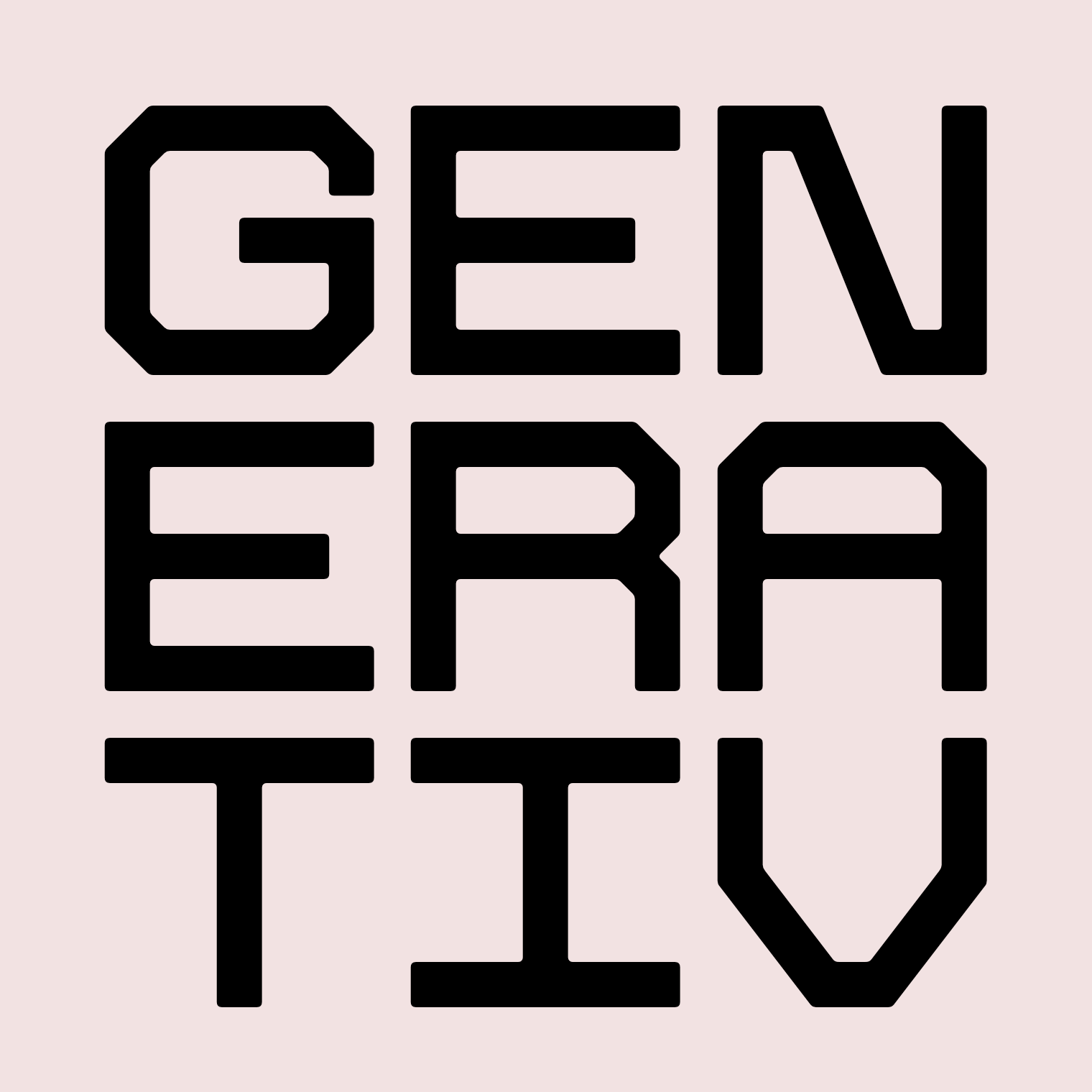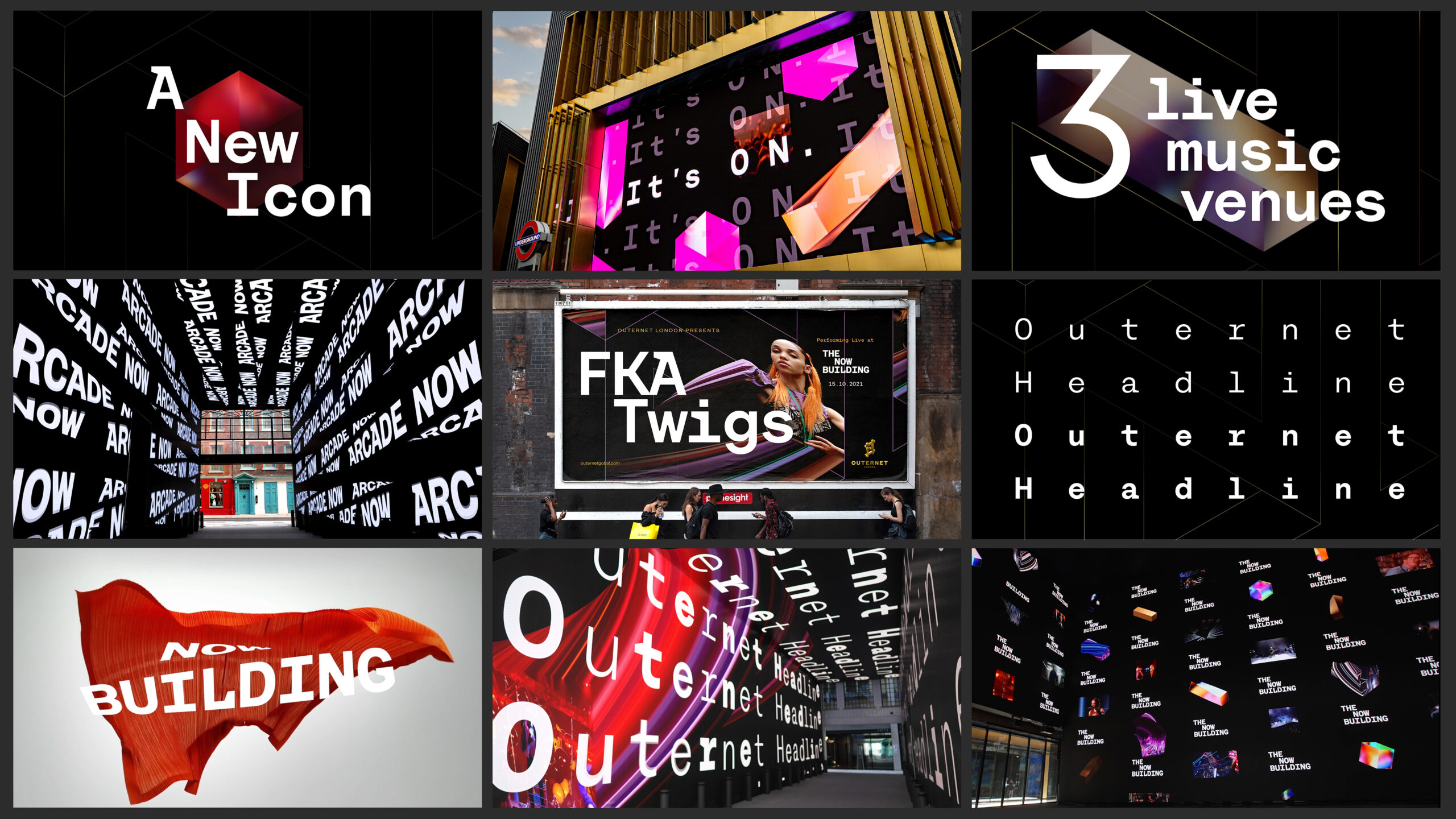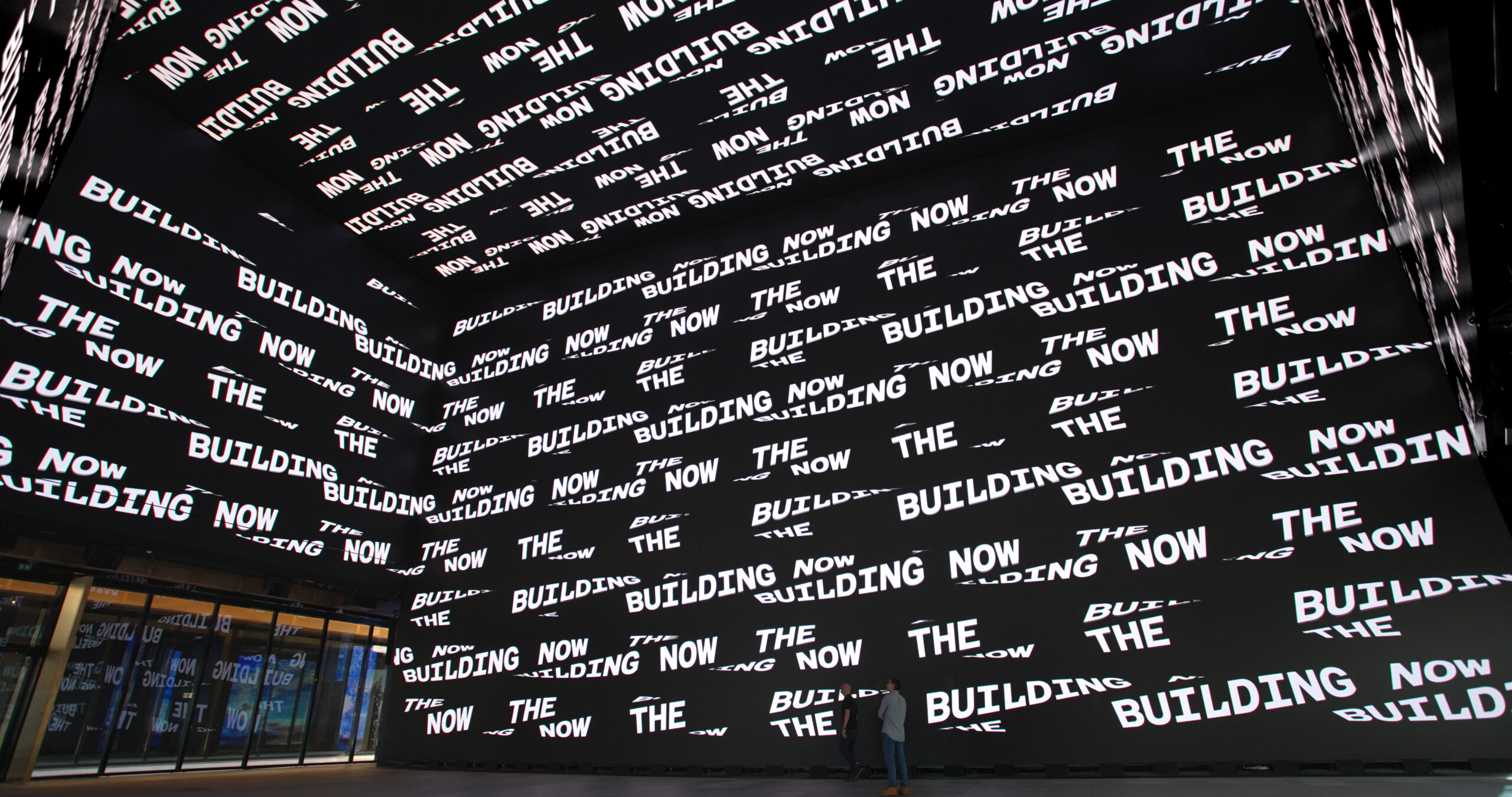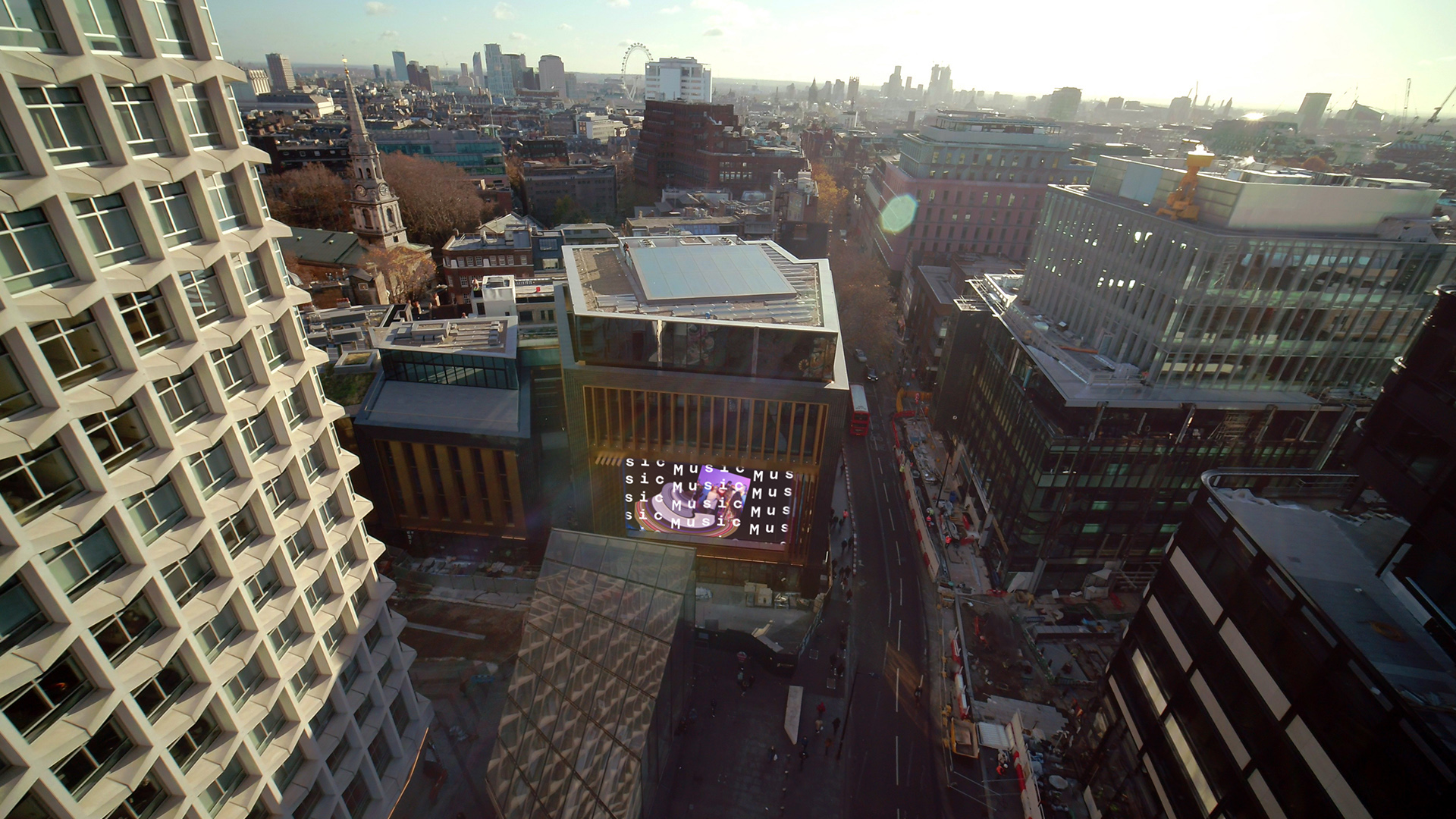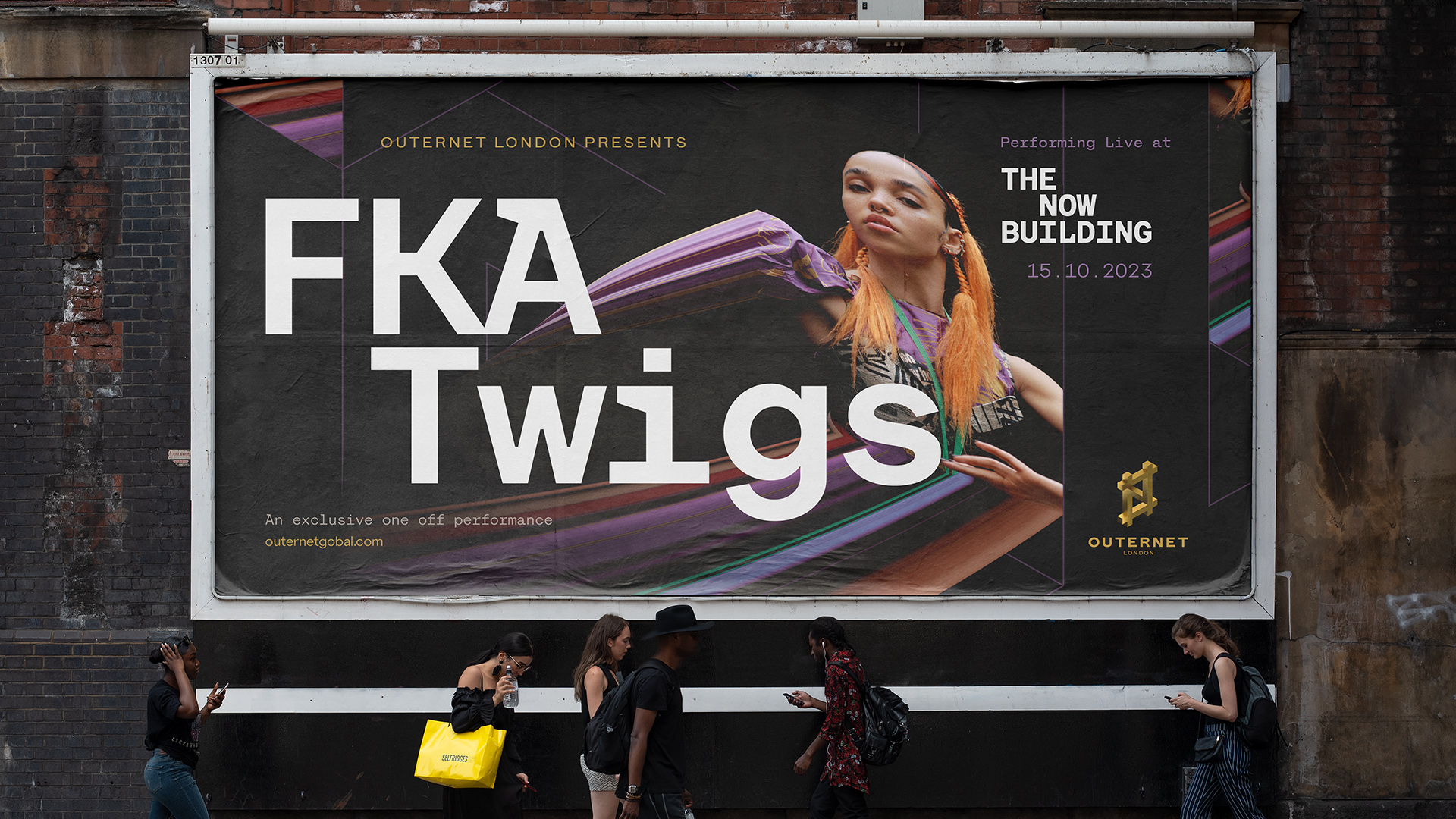
Koto partnered with us to give the Outernet, a new live-music and shopping venue in the heart of London, a distinctive typographic voice.
With its unique 200m pixel canvas of screens deploying on the façade of their 2 buildings, the Outernet needed a strong type presence as a glue to bring together a palette of contents diverse in their nature.
Aiming for a video-first application, we took advantage of variable fonts technology to create a display monospace family allowing it to be animated in its weight while keeping the same width. This titling family inherits from the specificities of monospace coding fonts, doubling down on the tech-oriented, physical internet identity of the venue. A second, calmer, proportional sub-family was then created to undertake the job of setting longer quantities of text.
Custom Typeface